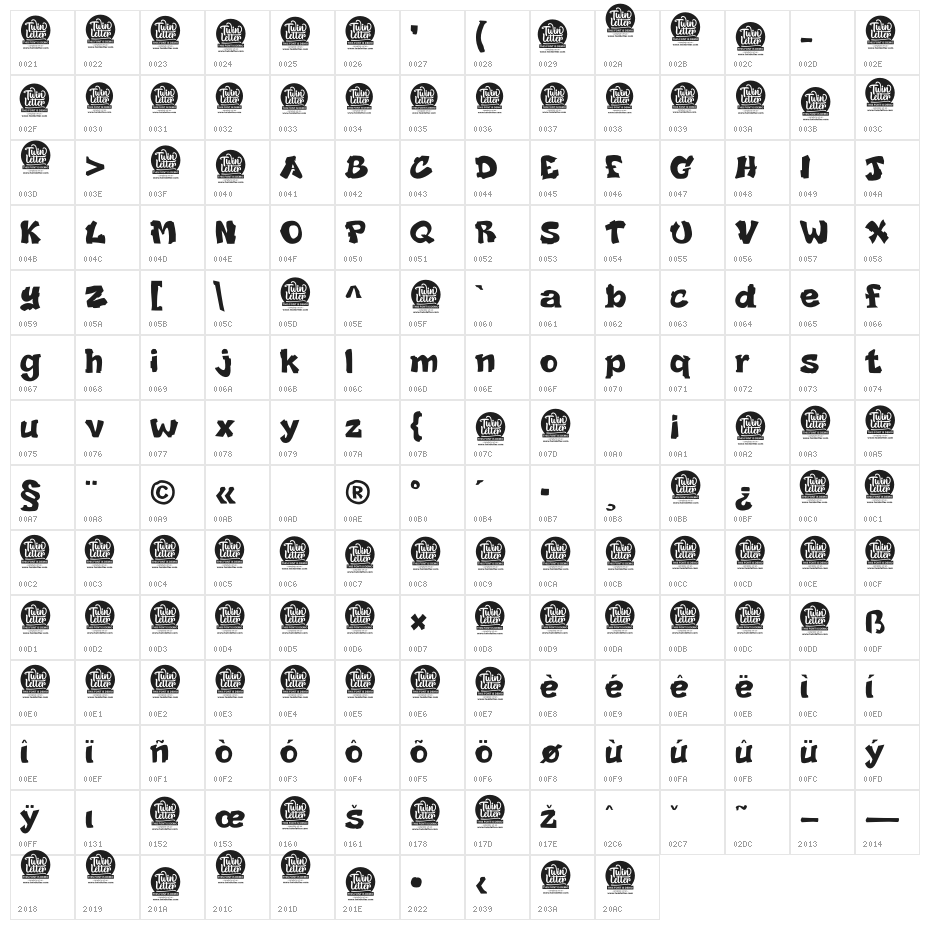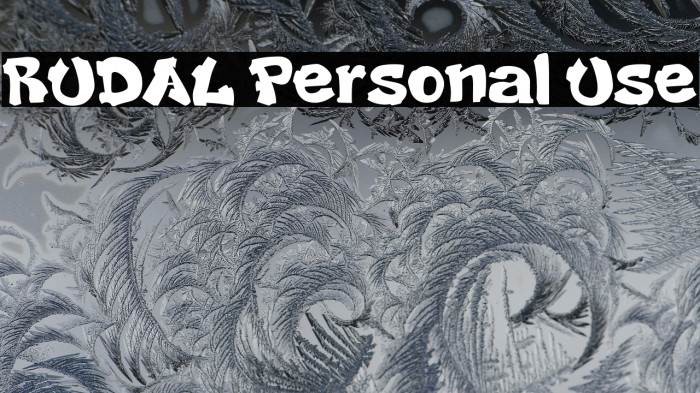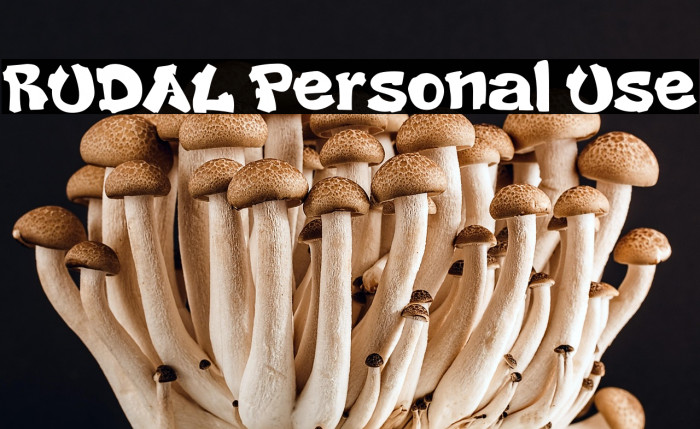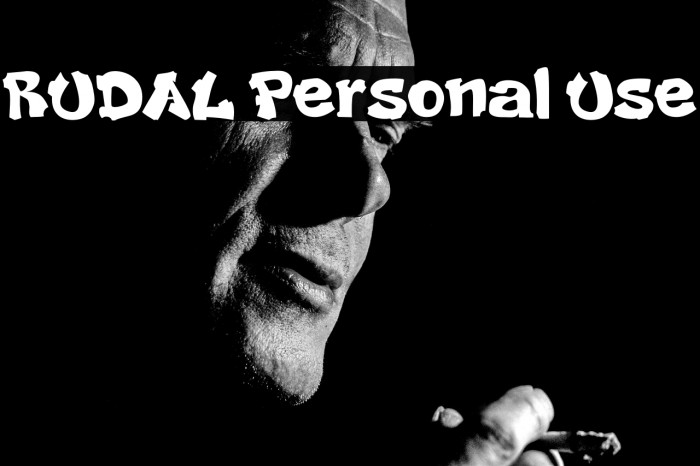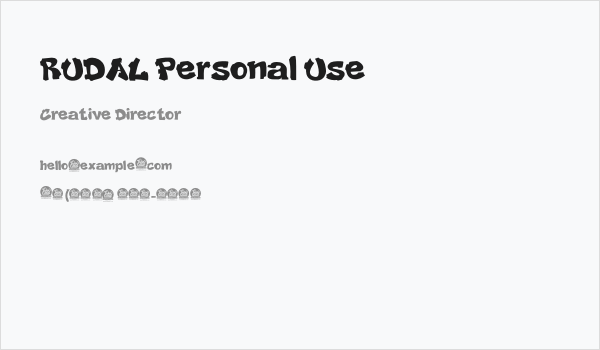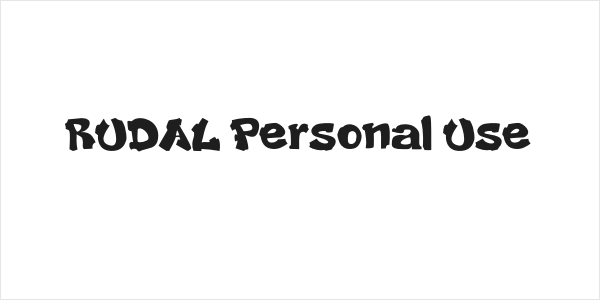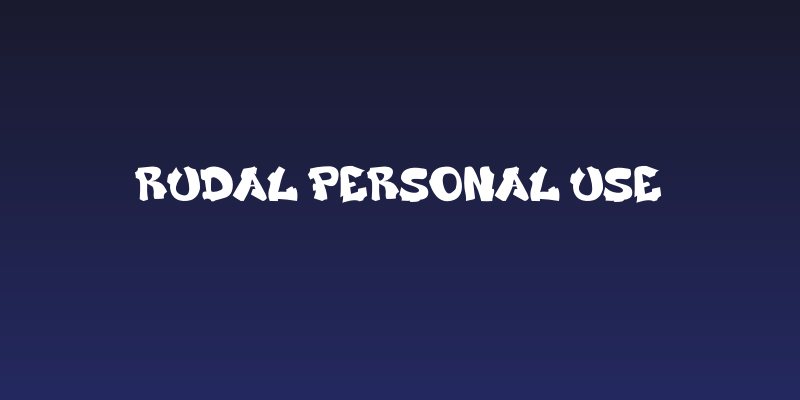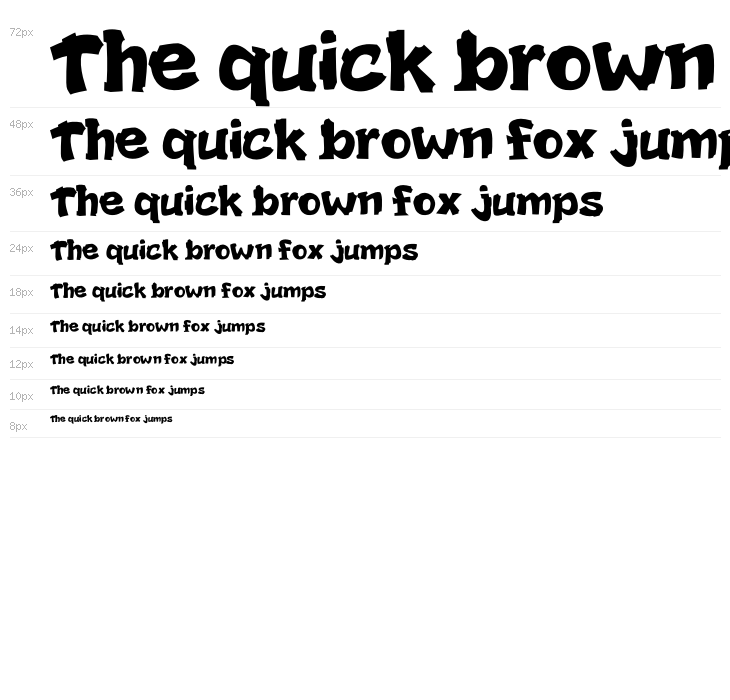
RUDAL Personal Use Font
RUDAL Personal Use Description
This font features a bold and playful style with a hand-drawn appearance. The characters are thick and slightly irregular, giving them a dynamic and energetic feel. The uppercase letters are robust and commanding, while the lowercase letters maintain a consistent flow with a touch of whimsy. The numbers and special characters follow the same bold and lively design, making the font suitable for creative and informal applications. Its unique style stands out, making it ideal for eye-catching designs.
| Overall Style | Playful, Energetic, Hand-drawn |
| Use Case | Headlines, Posters, Creative Branding |
| Proposed Projects | Ideal for posters, children's books, playful branding, and creative projects requiring a bold, standout font. |